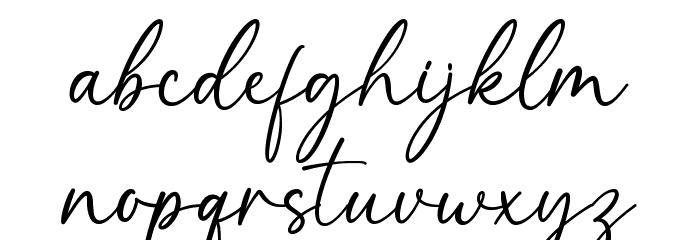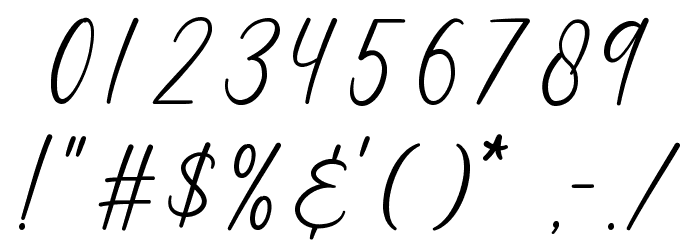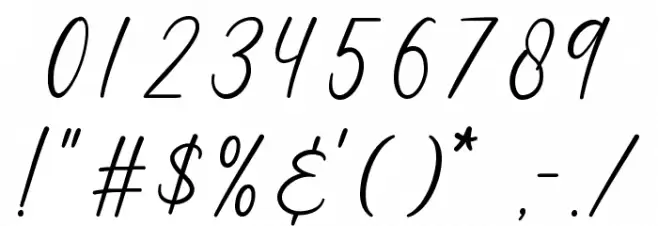
Giselle Font
This font features an elegant, flowing script style that mimics natural handwriting. The characters are connected with smooth, fluid strokes, giving it a graceful and sophisticated appearance. The uppercase letters are slightly larger and more pronounced, while the lowercase letters maintain a consistent flow. The numerals and special characters are designed to match the overall cursive style, ensuring a cohesive look across all text. This font is ideal for projects that require a personal touch, such as invitations, greeting cards, or branding materials. Its delicate lines and stylish curves make it suitable for conveying elegance and creativity.
An elegant, flowing script font with a natural handwriting style.
- Proposed Projects: Ideal for wedding invitations, greeting cards, personal branding, and creative projects.
- Category: Script
- Overall Style: Elegant, Creative
- Use Case: Headlines, Invitations, Logos